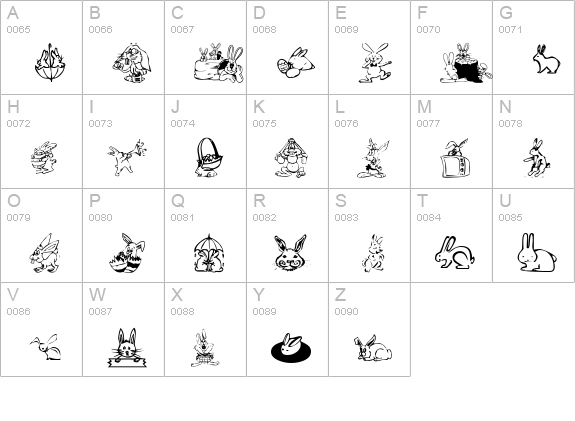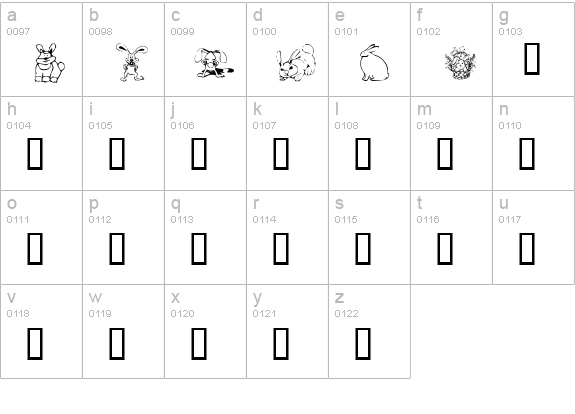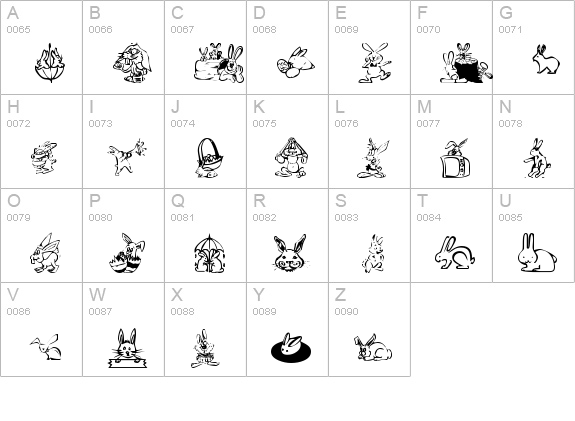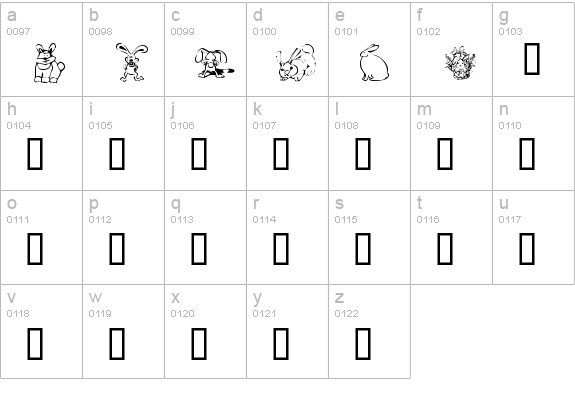
KR Bunny Dings Font Details
The KR Bunny Dings font is a whimsical and playful typeface that is perfect for adding a touch of charm to your designs. Featuring adorable bunny-themed dingbats, this font is sure to bring a smile to your audience's face. Whether you're creating greeting cards, invitations, or children's books, KR Bunny Dings will add a delightful and fun element to your projects. Best of all, KR Bunny Dings is available for free download at FontsMarket.com. This means you can easily add this charming font to your collection without breaking the bank. Don't miss out on the opportunity to bring some bunny-inspired magic to your designs with the KR Bunny Dings font - download it today and let your creativity hop to new heights!